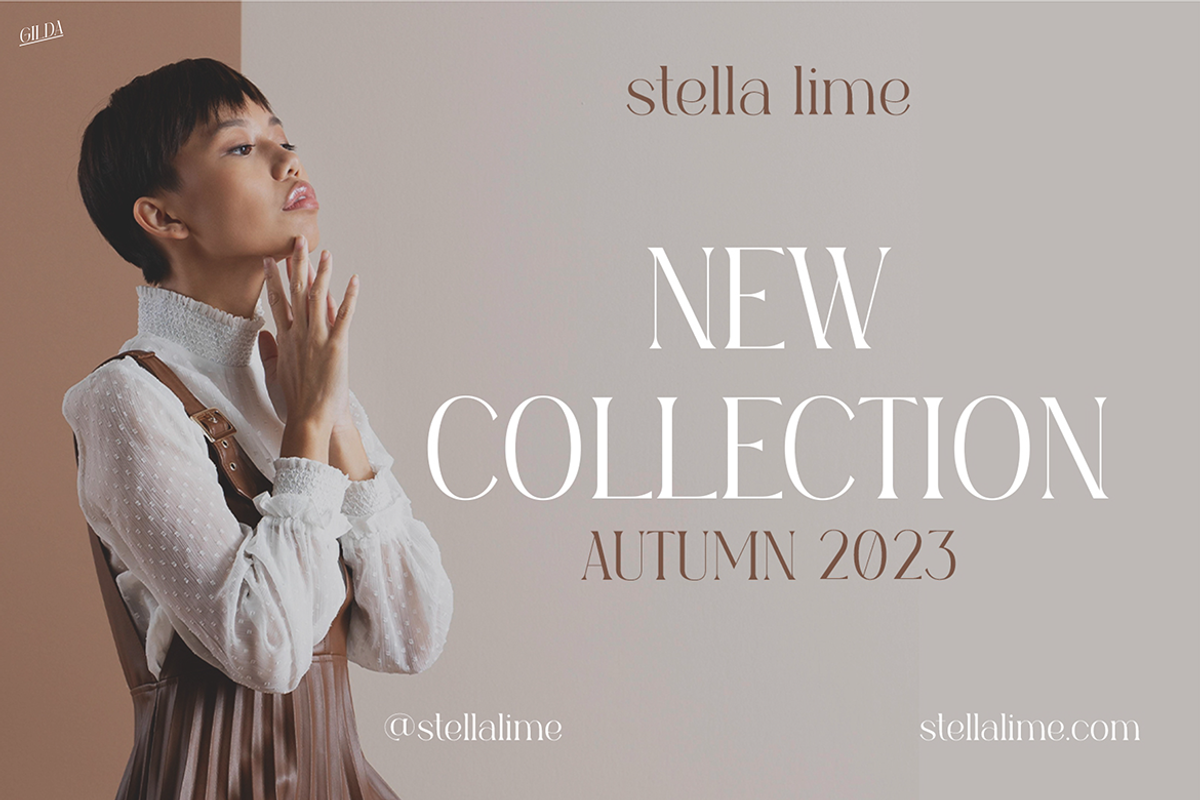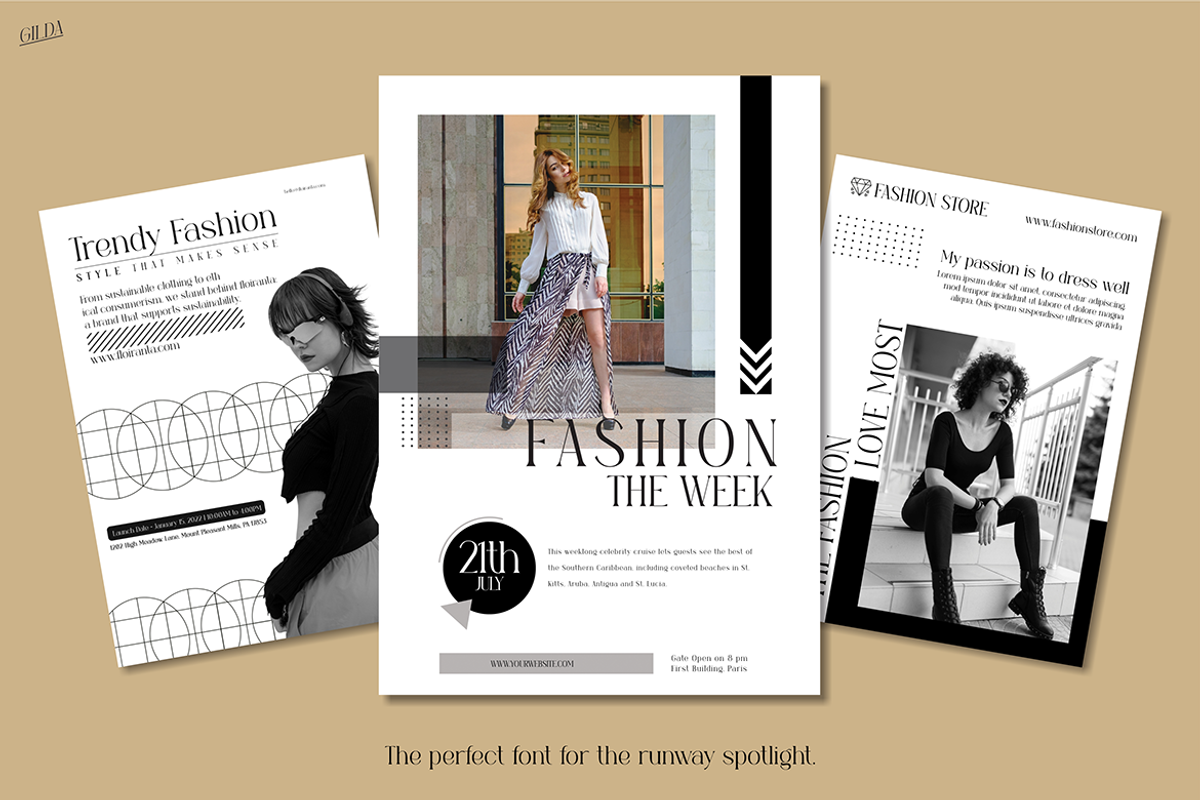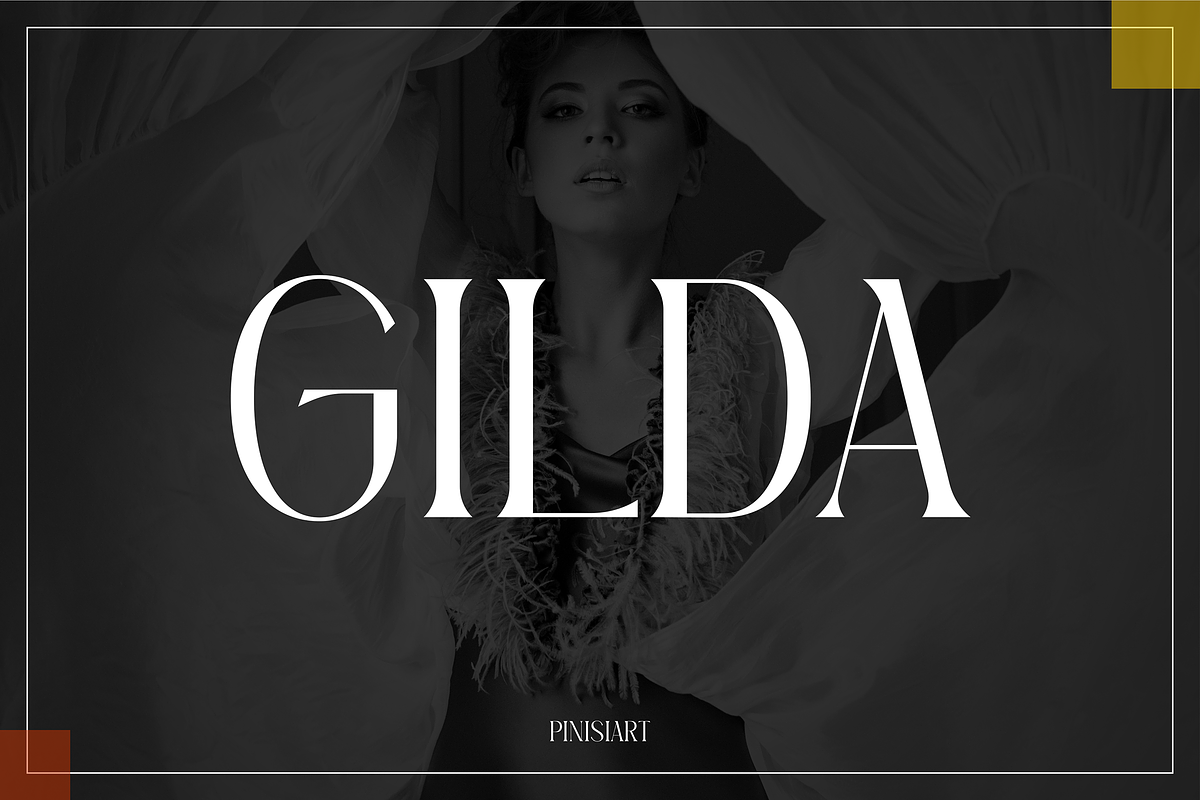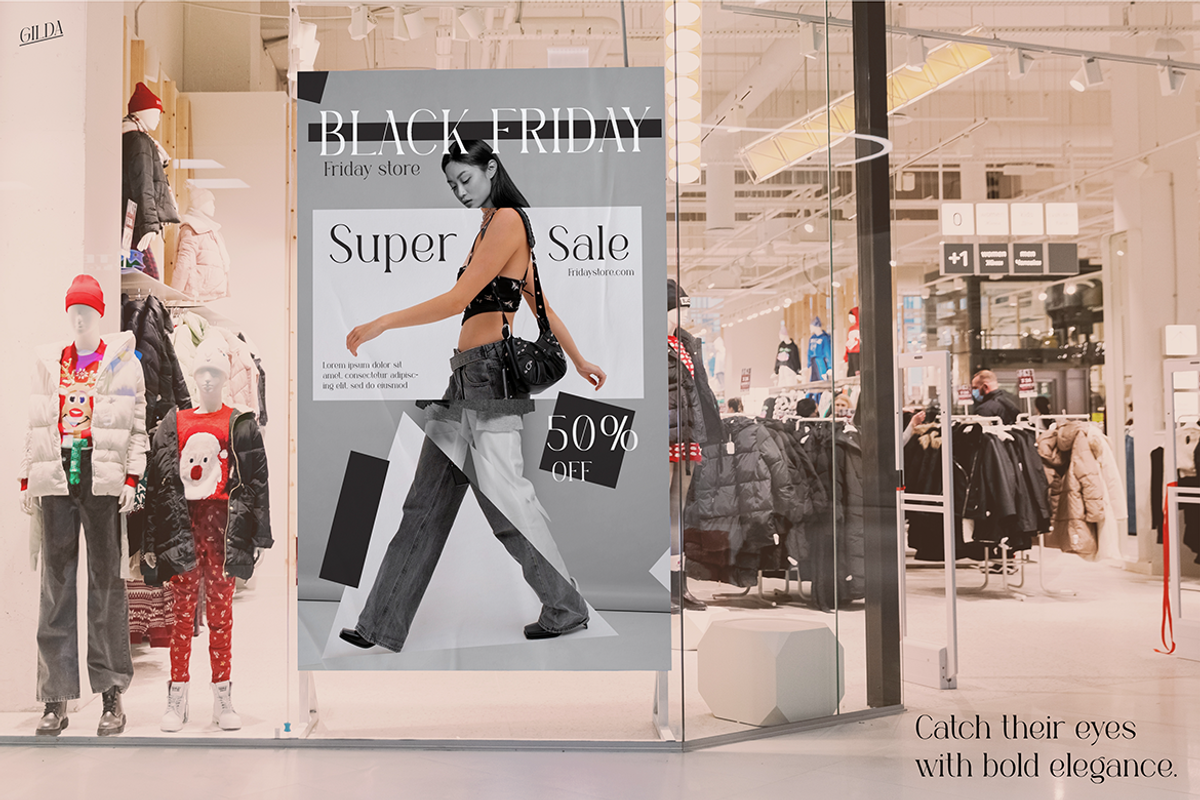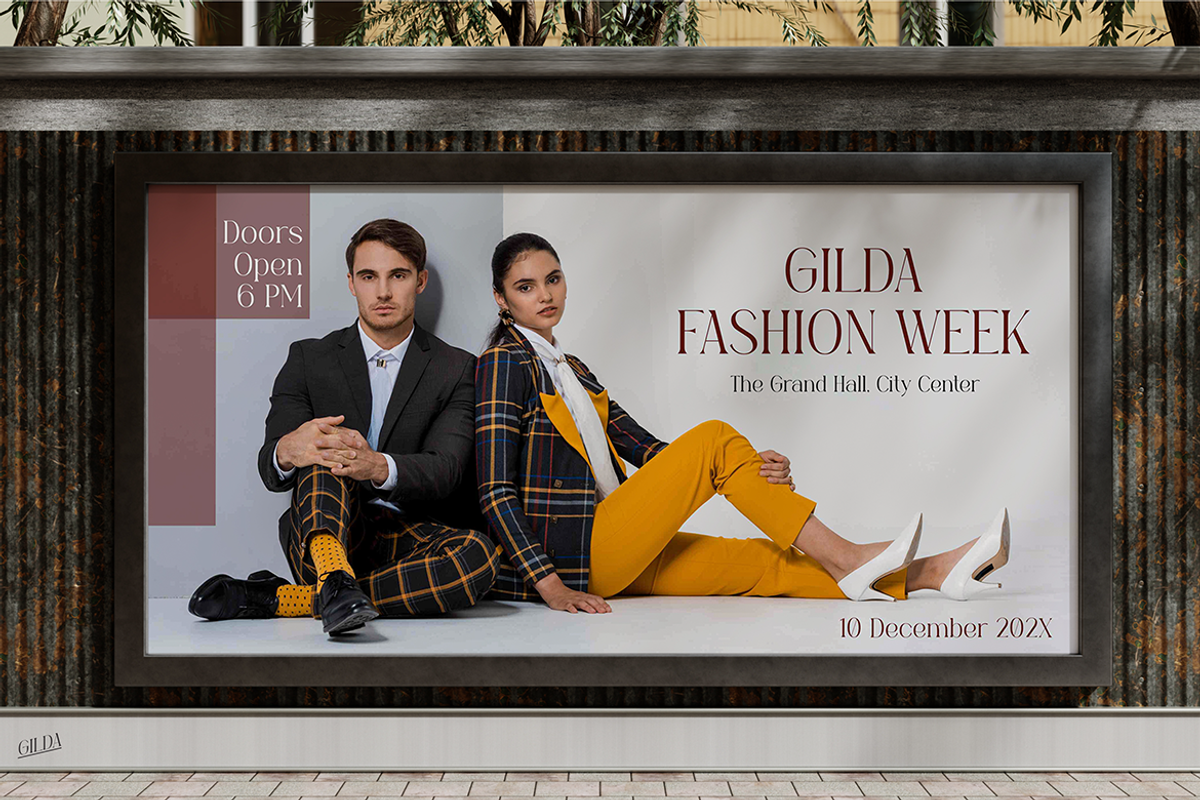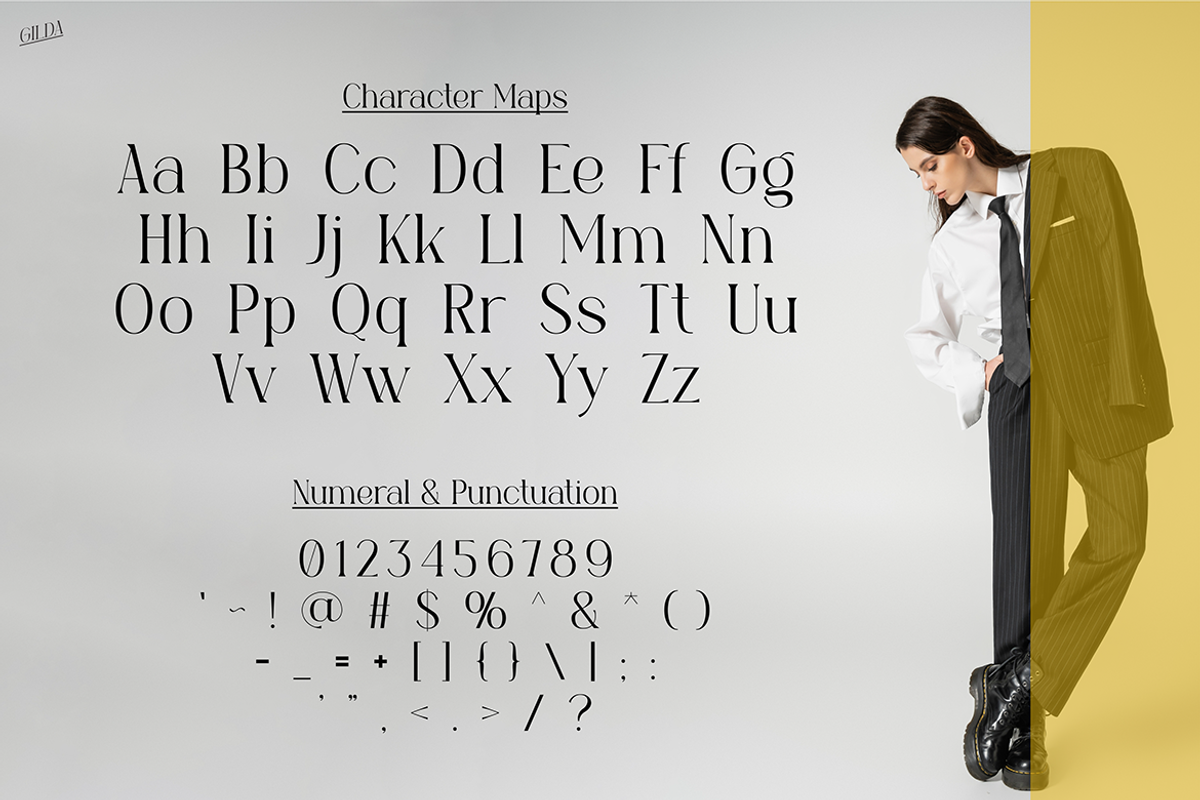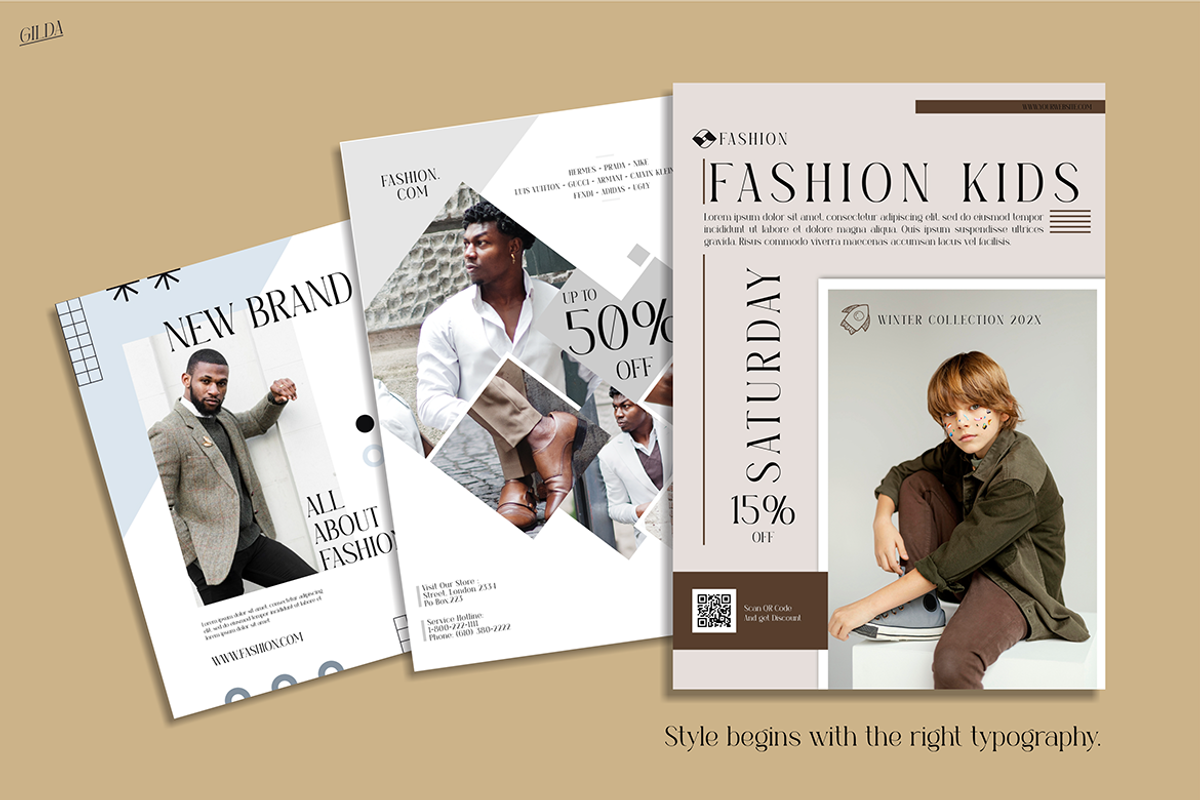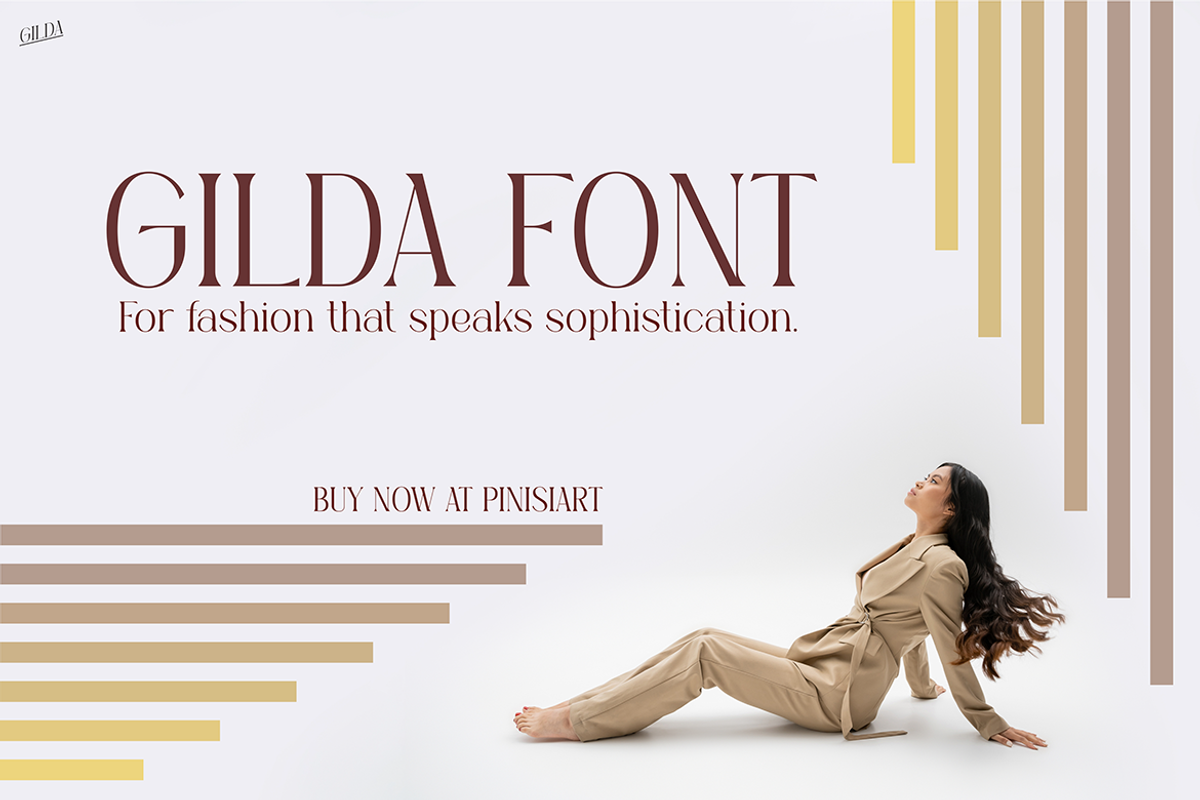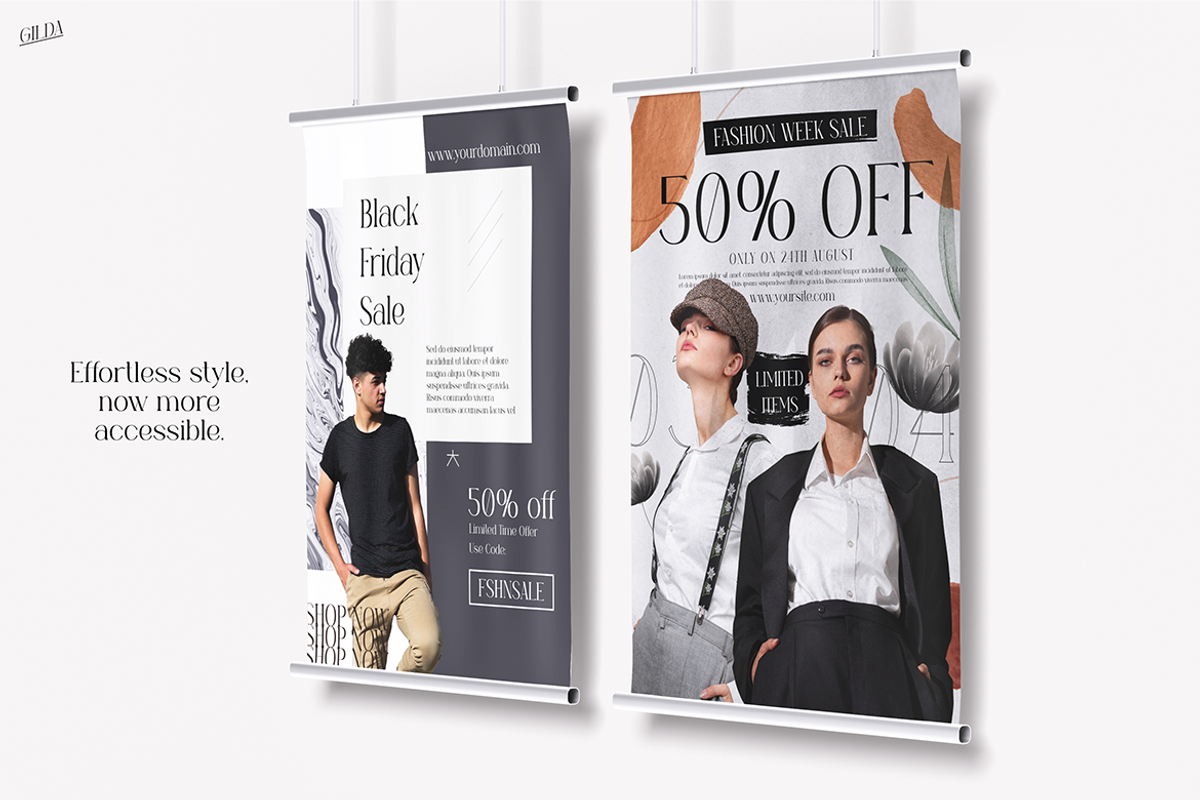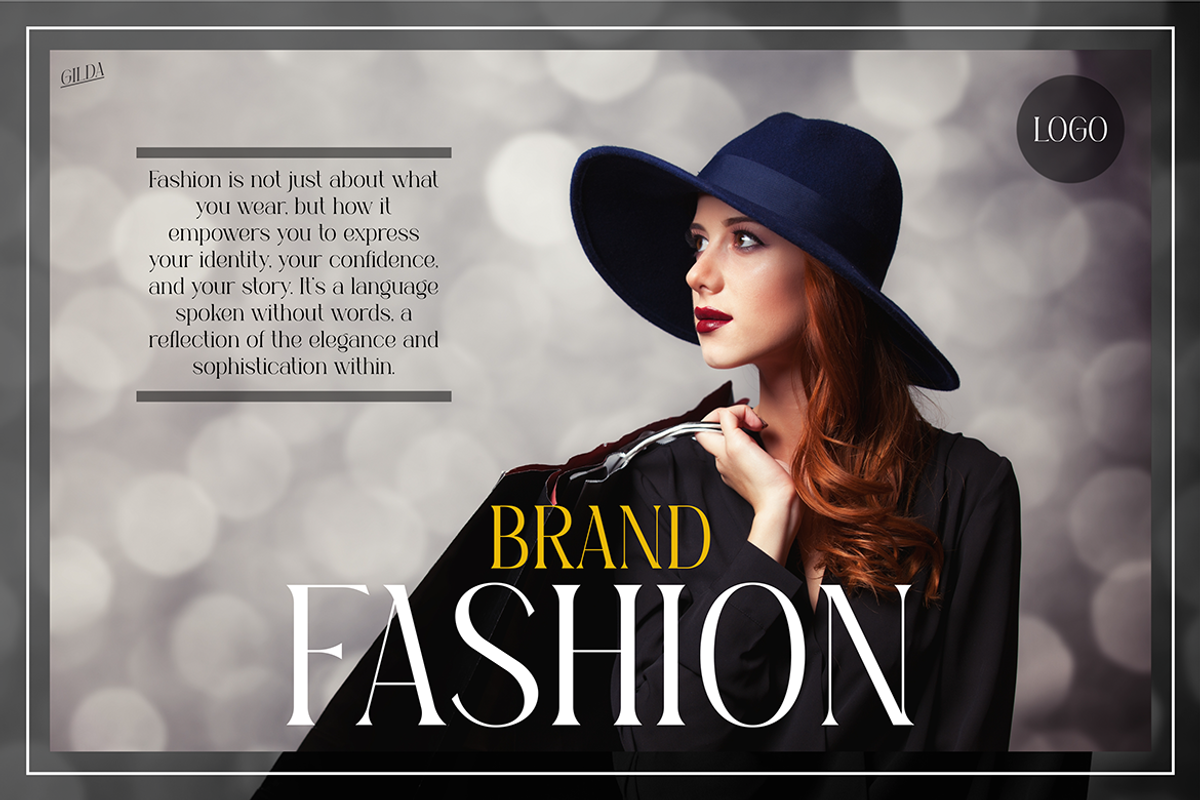
GILDA
Description Instagram Font Gilda is a sophisticated serif typeface that combines elegance with functionality. Known for its high-contrast strokes and refined curves, this font is perfect for creating designs that demand attention. Moreover, its clean and timeless aesthetic makes it suitable for a wide range of creative projects.
What sets Gilda apart is its modern yet versatile design. It strikes the perfect balance between simplicity and style, ensuring it adapts well to both digital and print mediums. Whether you’re working on Instagram posts, captions, or branding materials, Gilda ensures your content stands out. Furthermore, the font maintains excellent legibility at any size, making it practical for longer text while retaining its beauty.
In addition, Gilda’s design reflects sophistication and professionalism. Its structured letterforms exude confidence, making it an excellent choice for high-end projects. With every detail carefully crafted, Gilda creates a lasting impression that resonates with audiences who appreciate elegance and class.